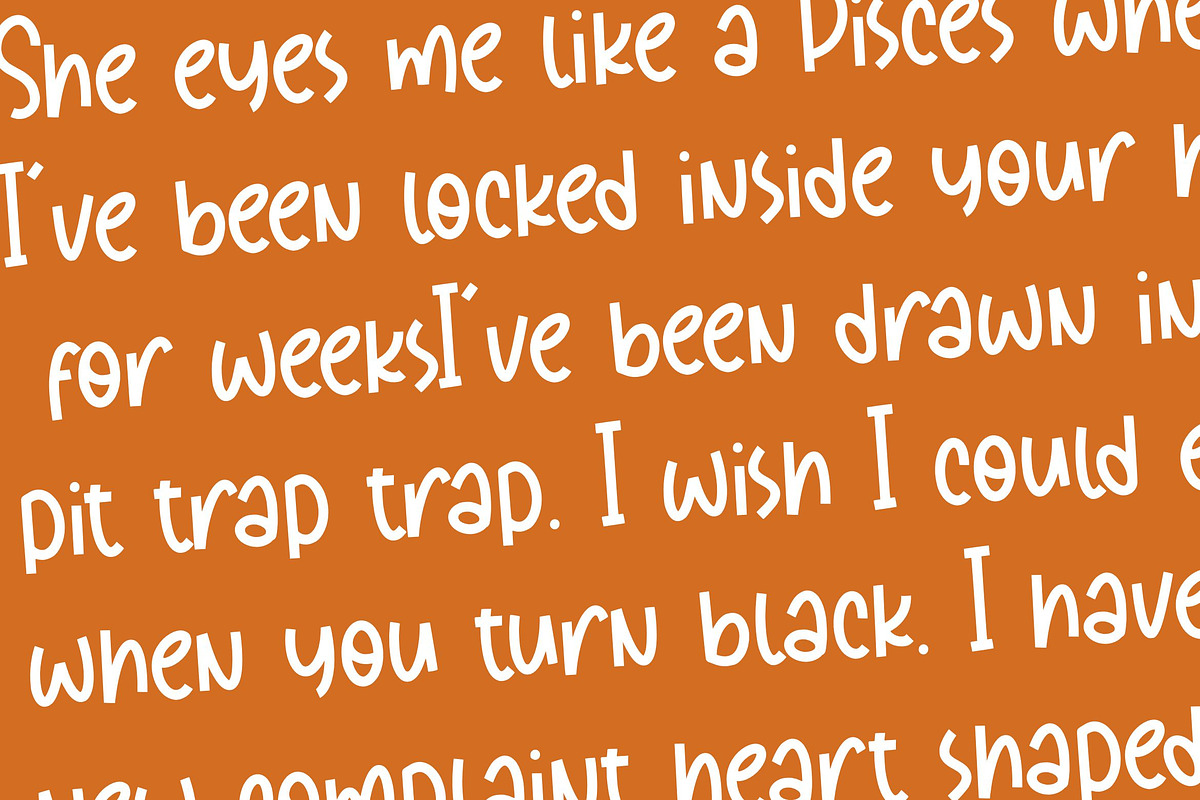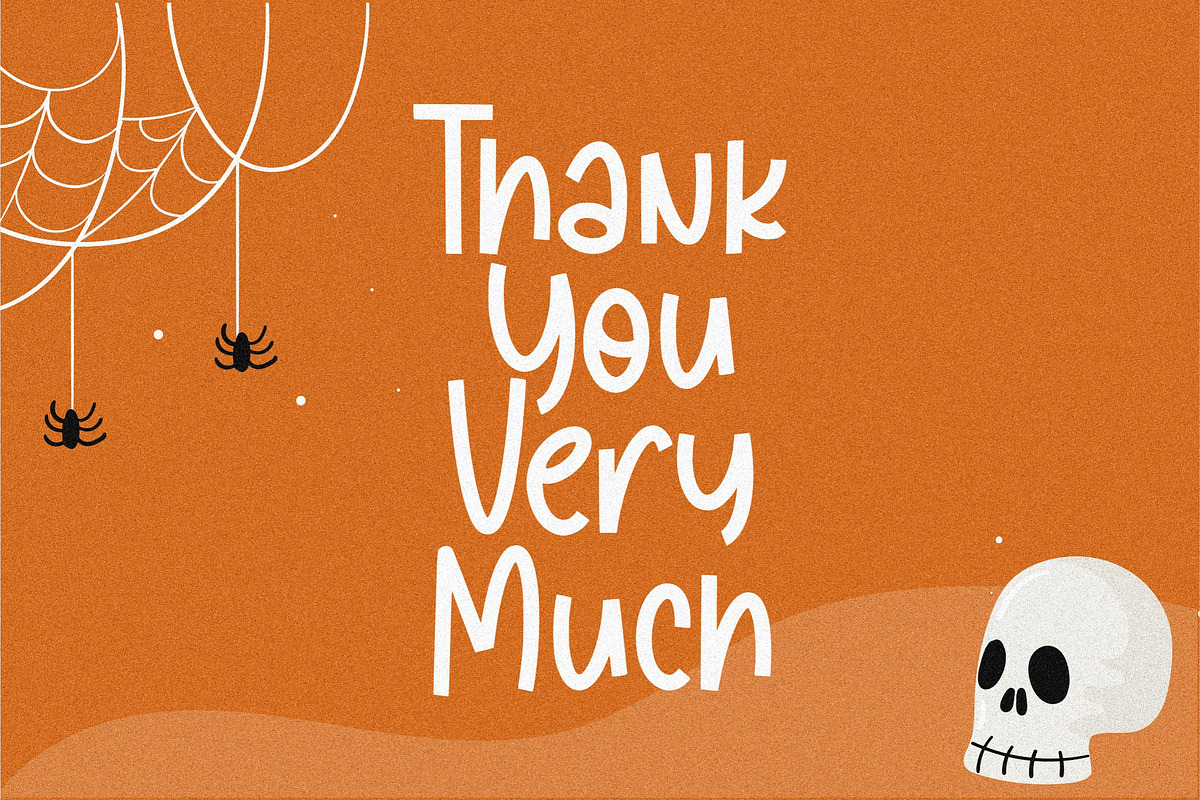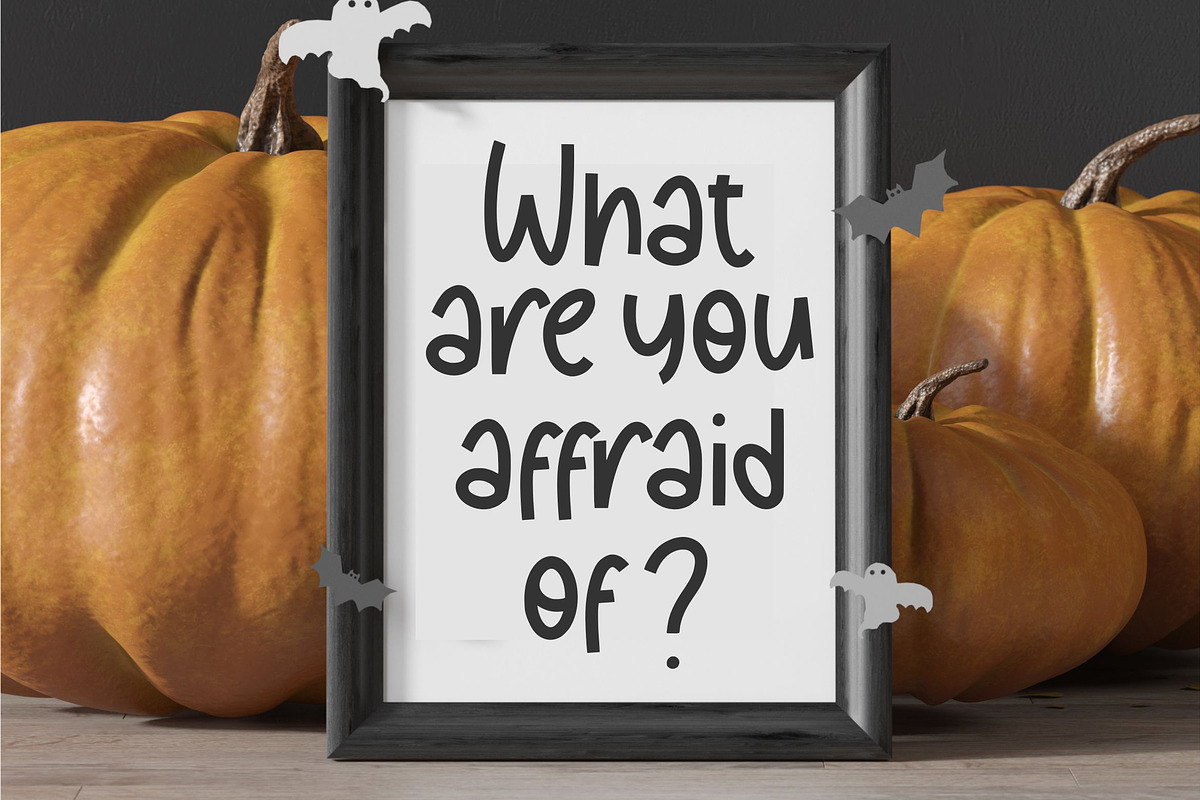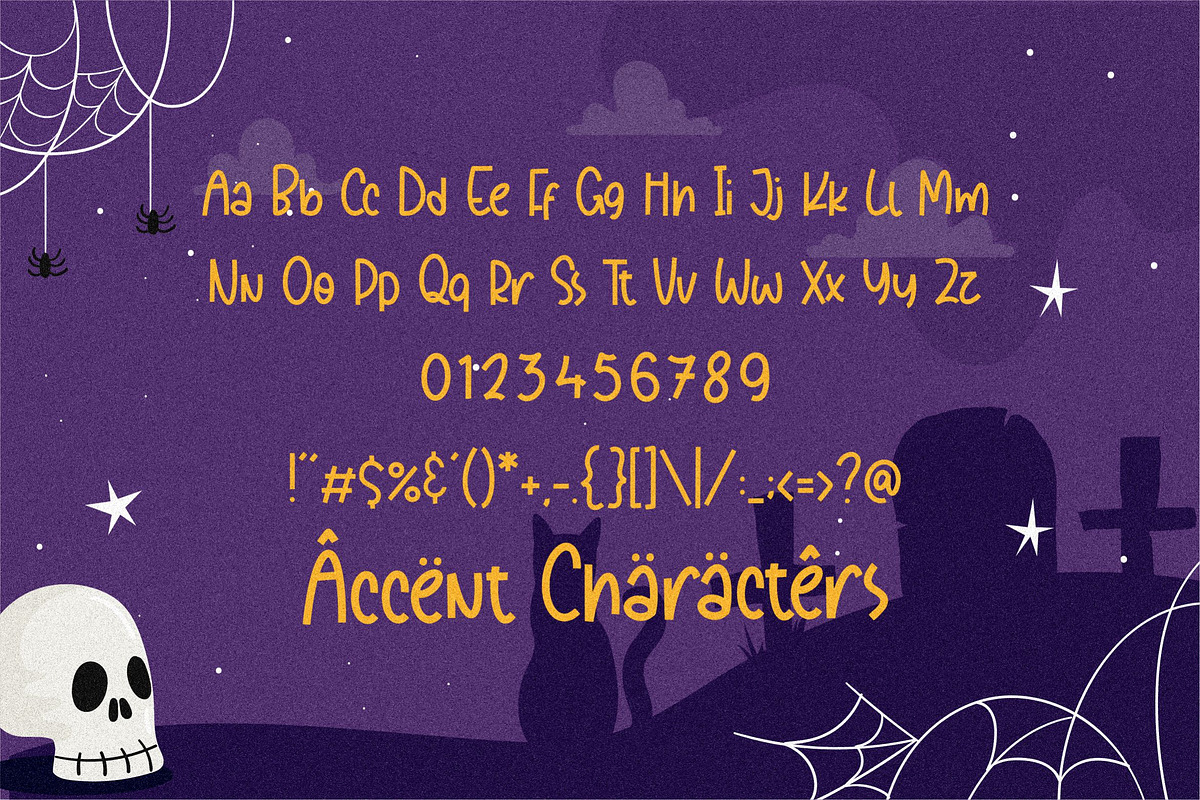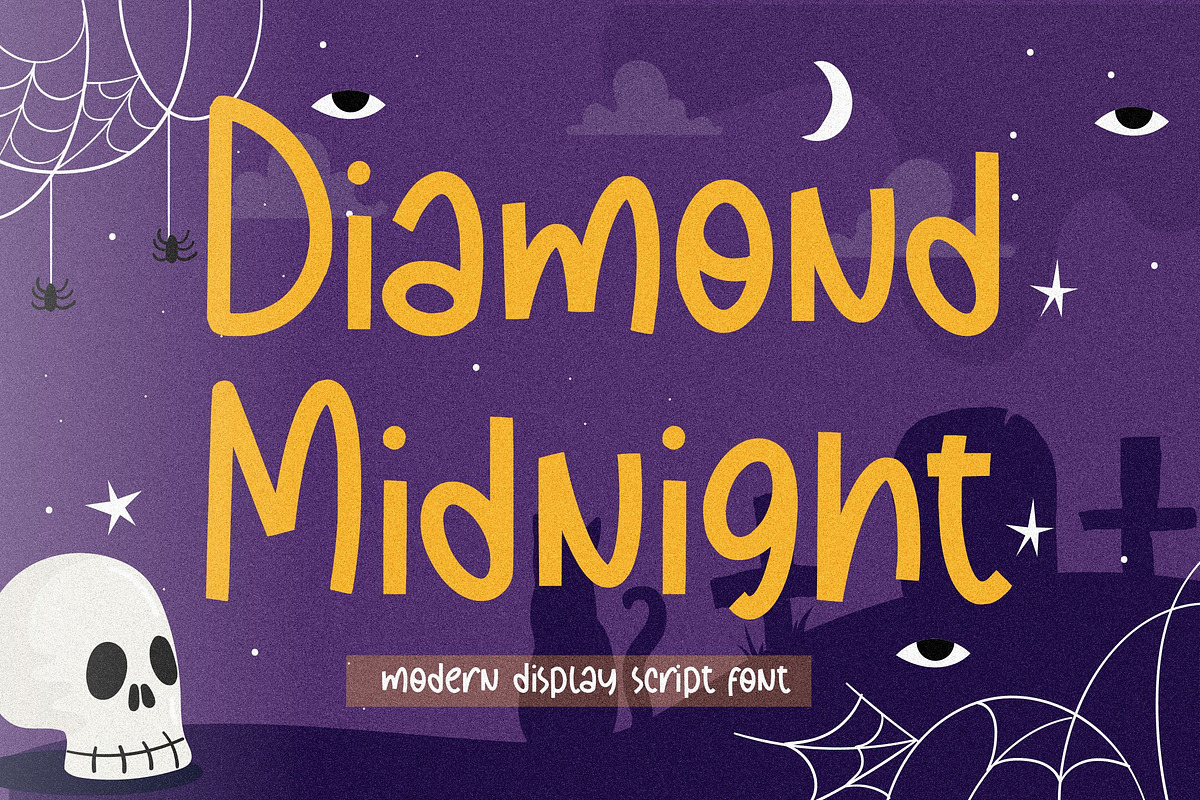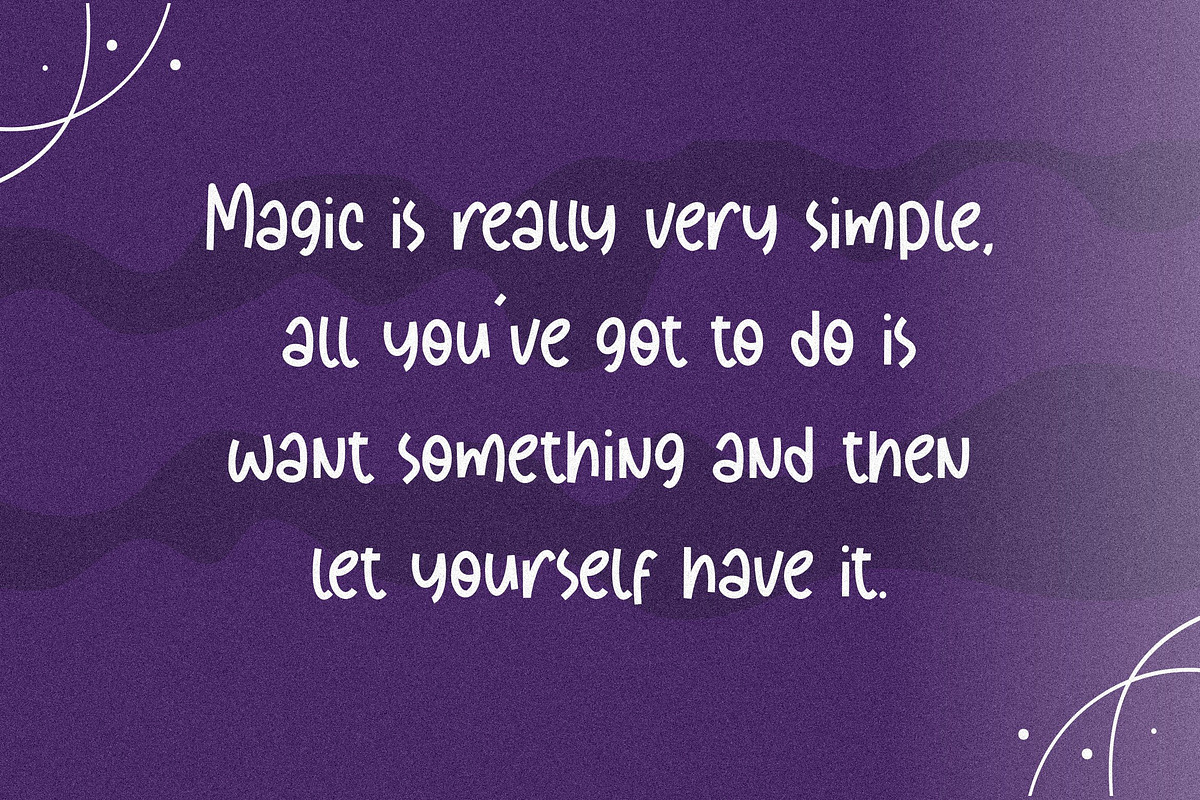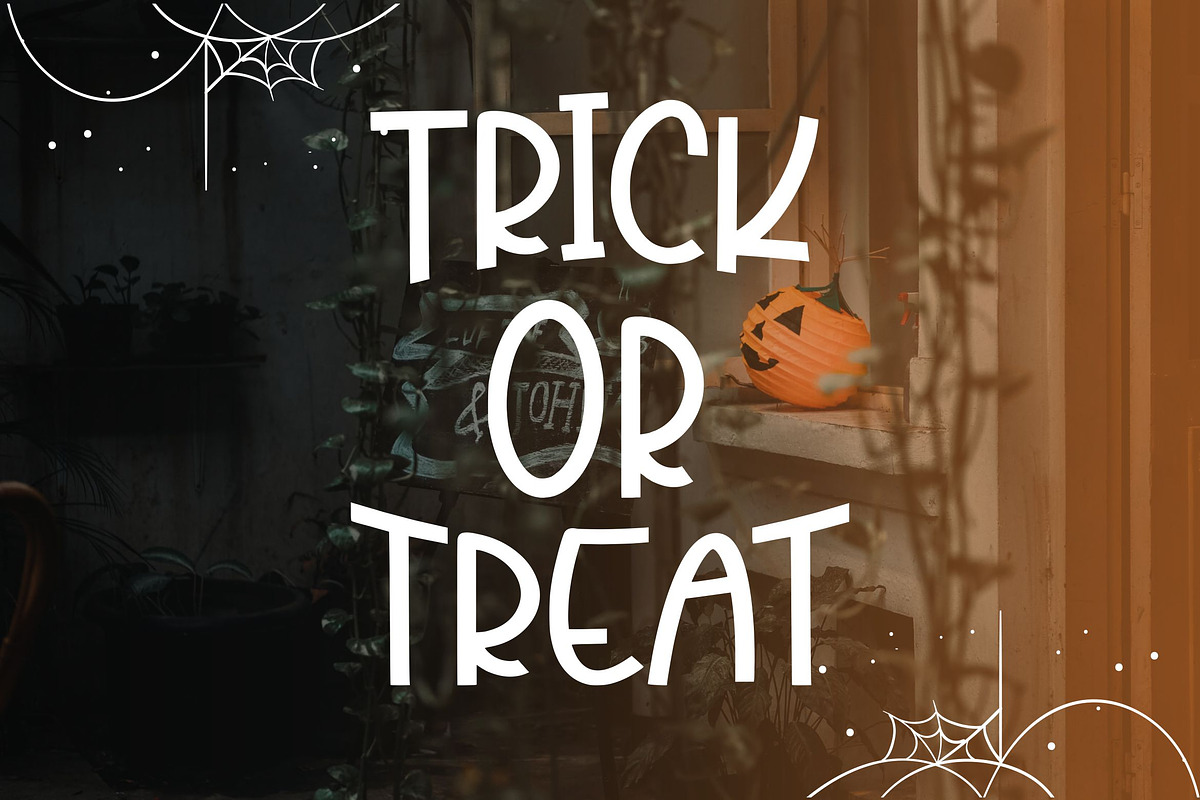
Diamond Midnight - Display Script
Proudly Present, Diamond Midnight Font
Diamond Midnight is a quirky yet bold display font. It looks perfect on product packaging, branding, magazines, social media, invitations, and much more.